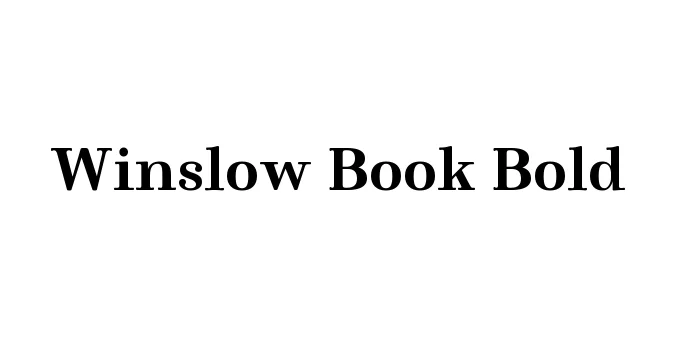
Winslow Book Bold
Designed by Kimmy Kirkwood
Winslow Book Bold is a sophisticated high-contrast serif typeface designed by Kimmy Kirkwood of Kimmy Design. Part of the larger Winslow family, this weight strikes a perfect balance between 18th-century classical influences and 20th-century modern refinement. It features sharp serifs, distinct vertical stress, and graceful curves that lend an air of luxury and authority to any typographic layout.
Specifically optimized for legibility and impact, the Book Bold variant excels in both editorial settings and high-end branding. Its meticulous spacing and character proportions ensure that it remains readable while commanding attention, making it a favorite for designers looking to combine timeless elegance with contemporary versatility in their creative projects.
Winslow Book Bold Best Uses
Perfect for magazines and newspaper headlines where elegance is required.
Ideal for high-end fashion or luxury brand identities and logos.
Excellent for titles requiring a classic yet bold and authoritative look.
Great for striking hero sections and large headers to catch attention.